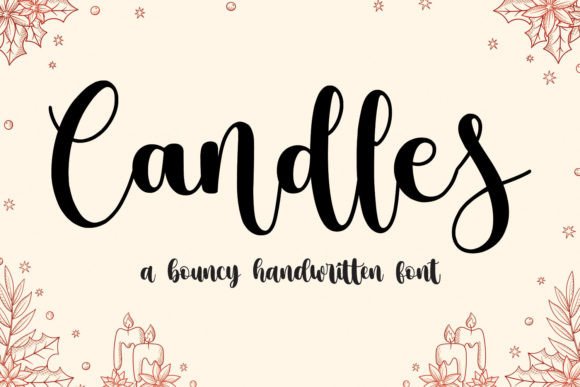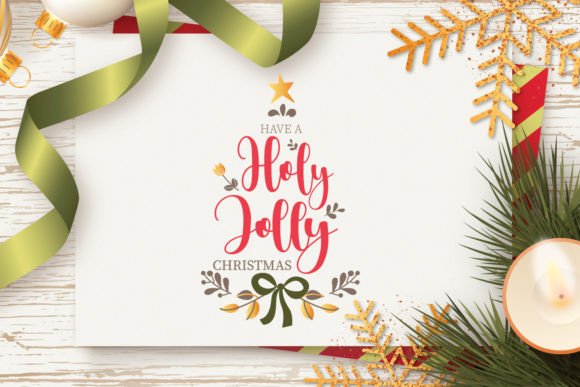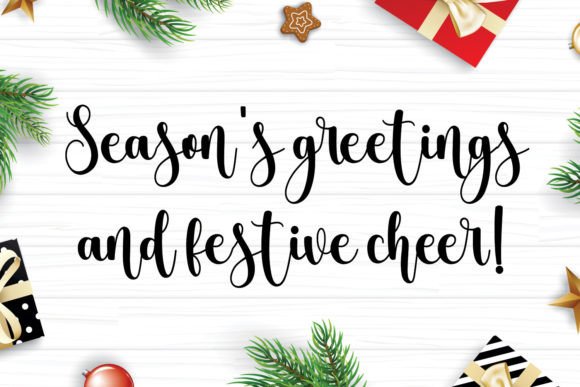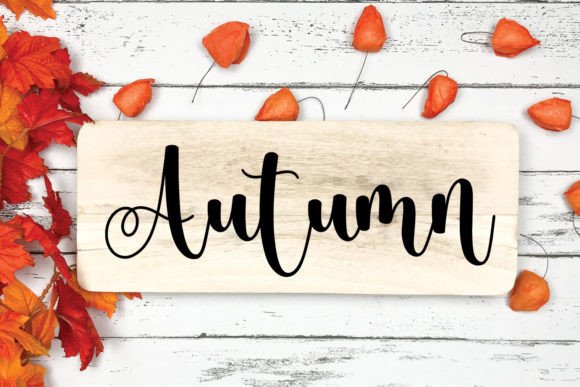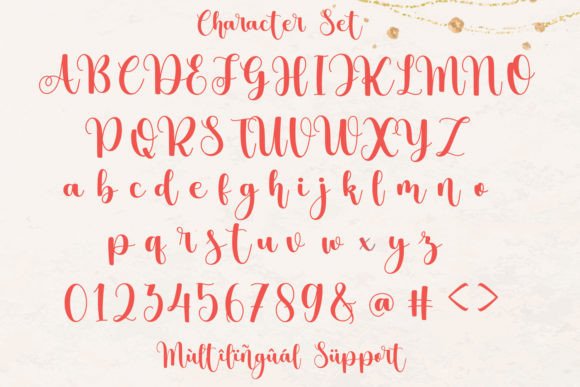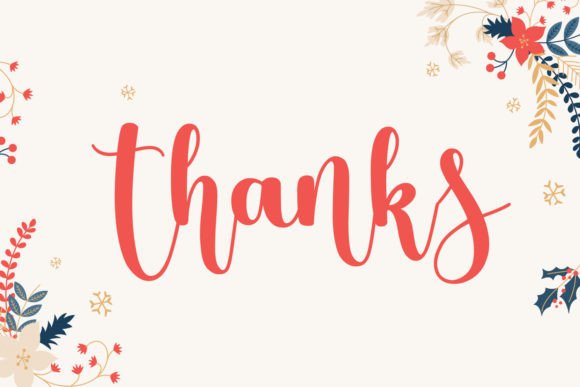
Introducing “Candles” a delightful bouncy script handwritten font that will add a touch of whimsy and charm to your designs! This unique font is meticulously crafted to bring a playful yet elegant vibe to any project. Whether you’re designing greeting cards, invitations, logos, or branding materials, “Candles” will elevate your creations to new heights.
Candles Font